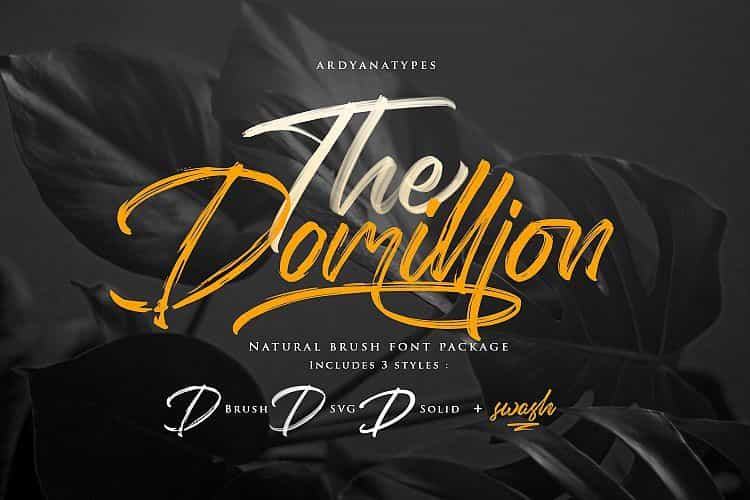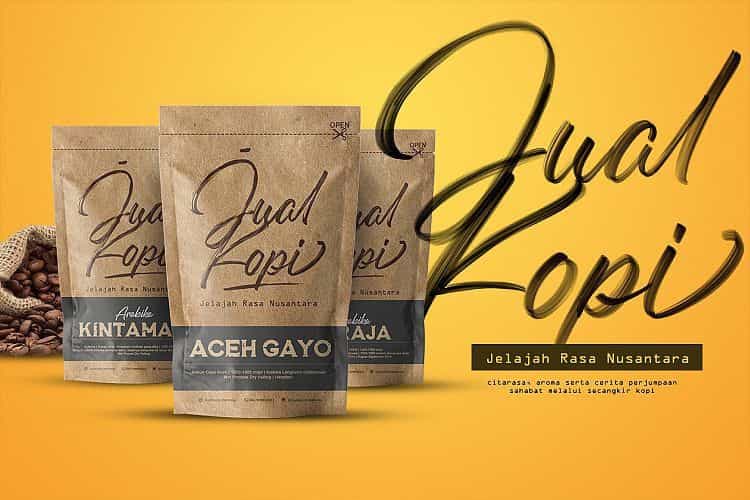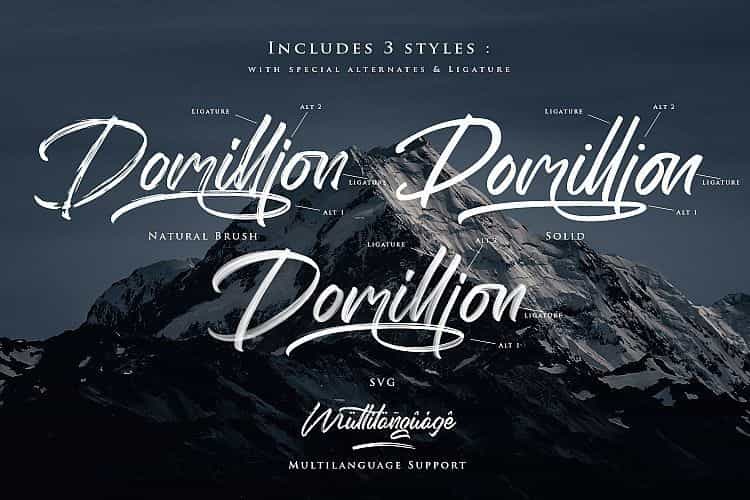
Meet The Domillion Font. The font designed with high-definition paint textures. It is created and distributed by Ardyanatypes. Domillion is made with natural hand scratches that are ideal for enhancing your design. Domillion has 3 different styles of accents, which are the submitted Brush, SVG and Clean. Each one of them is unique in its own way.